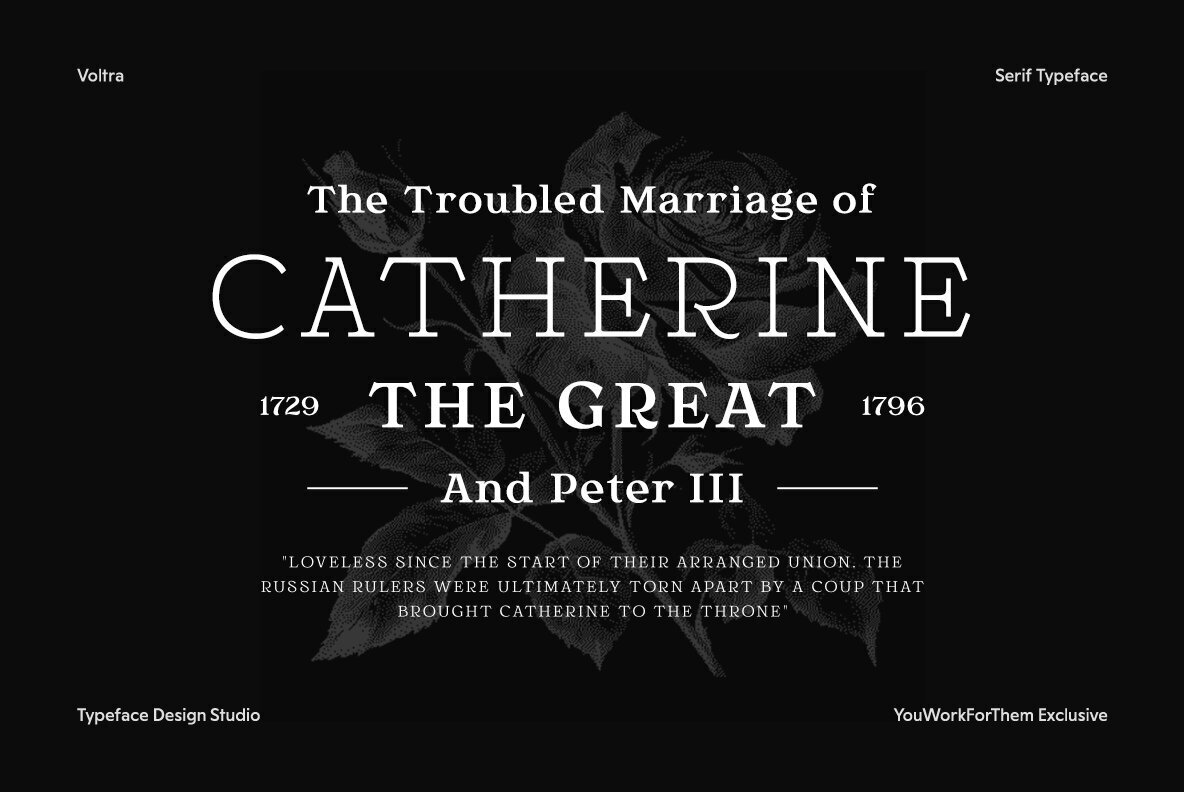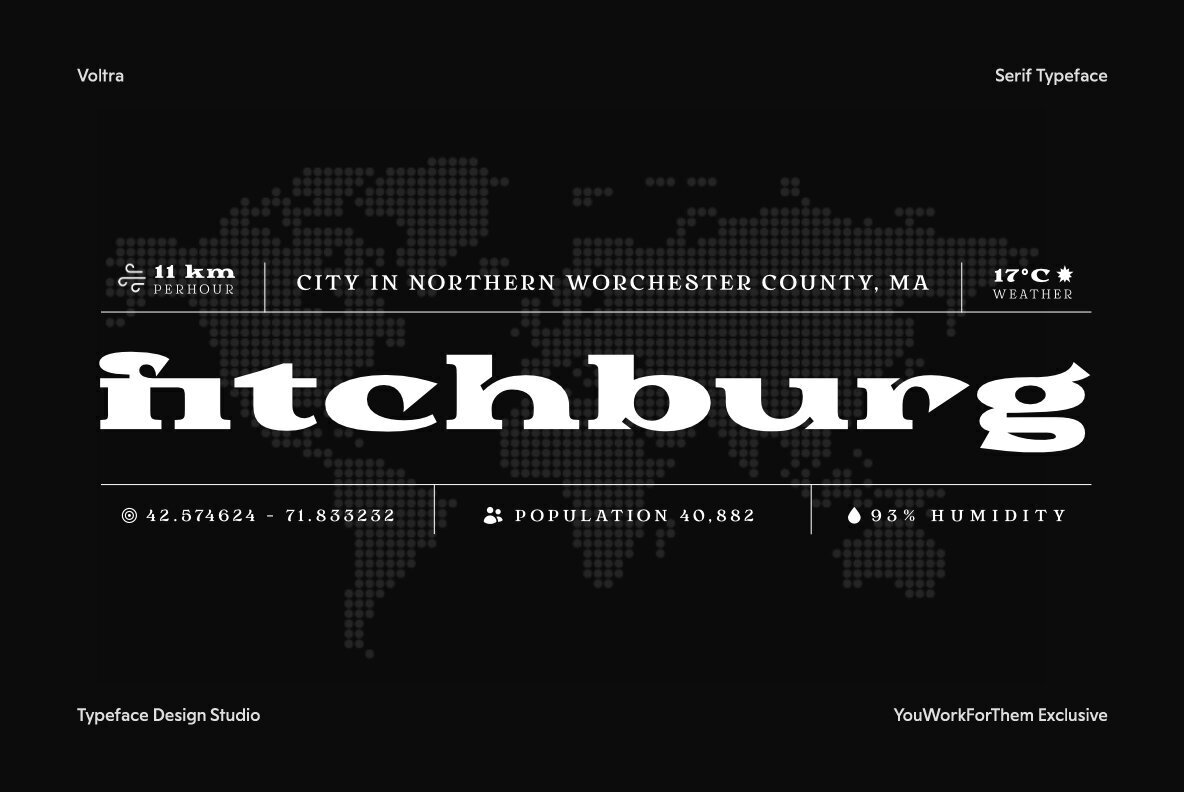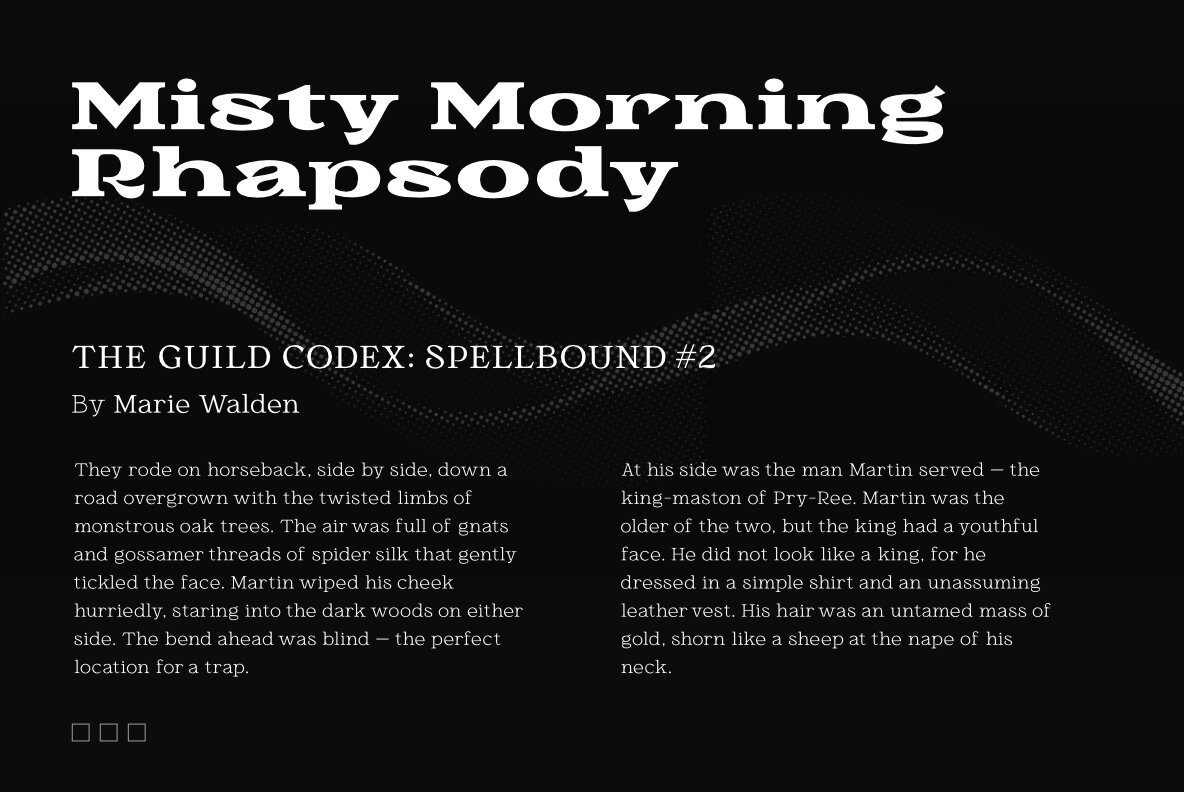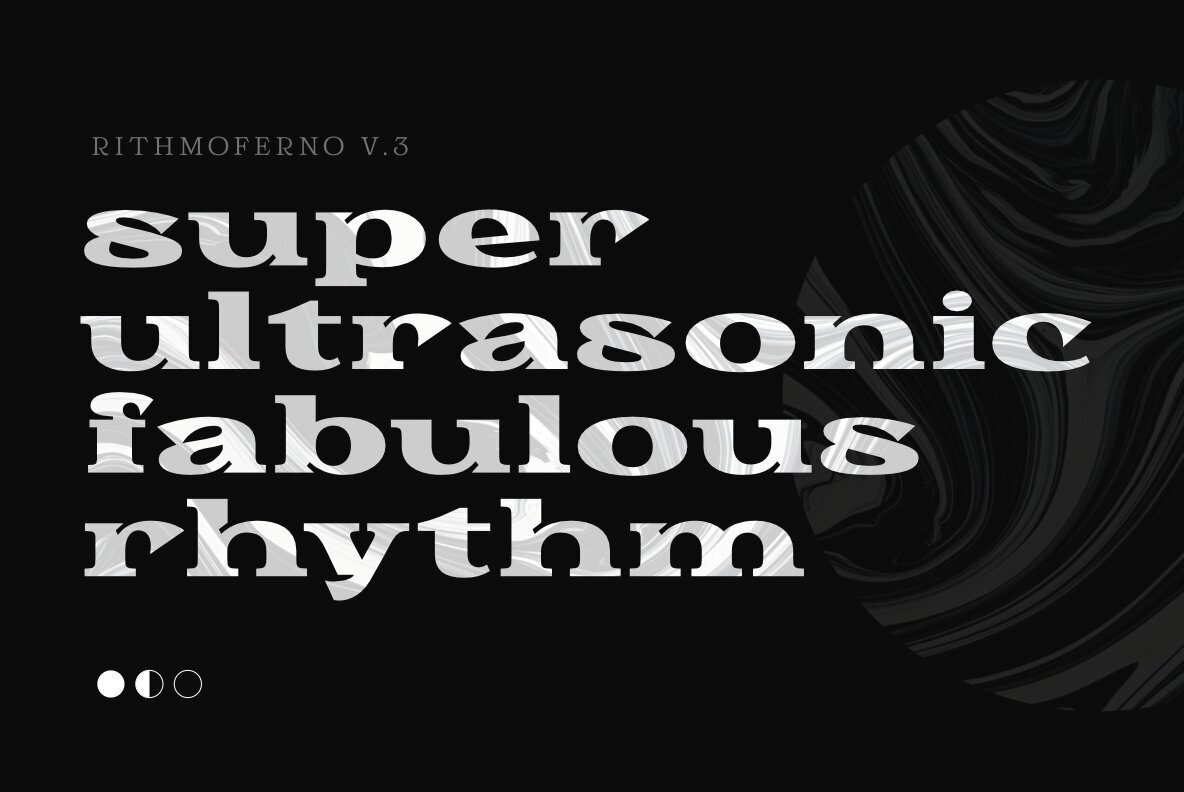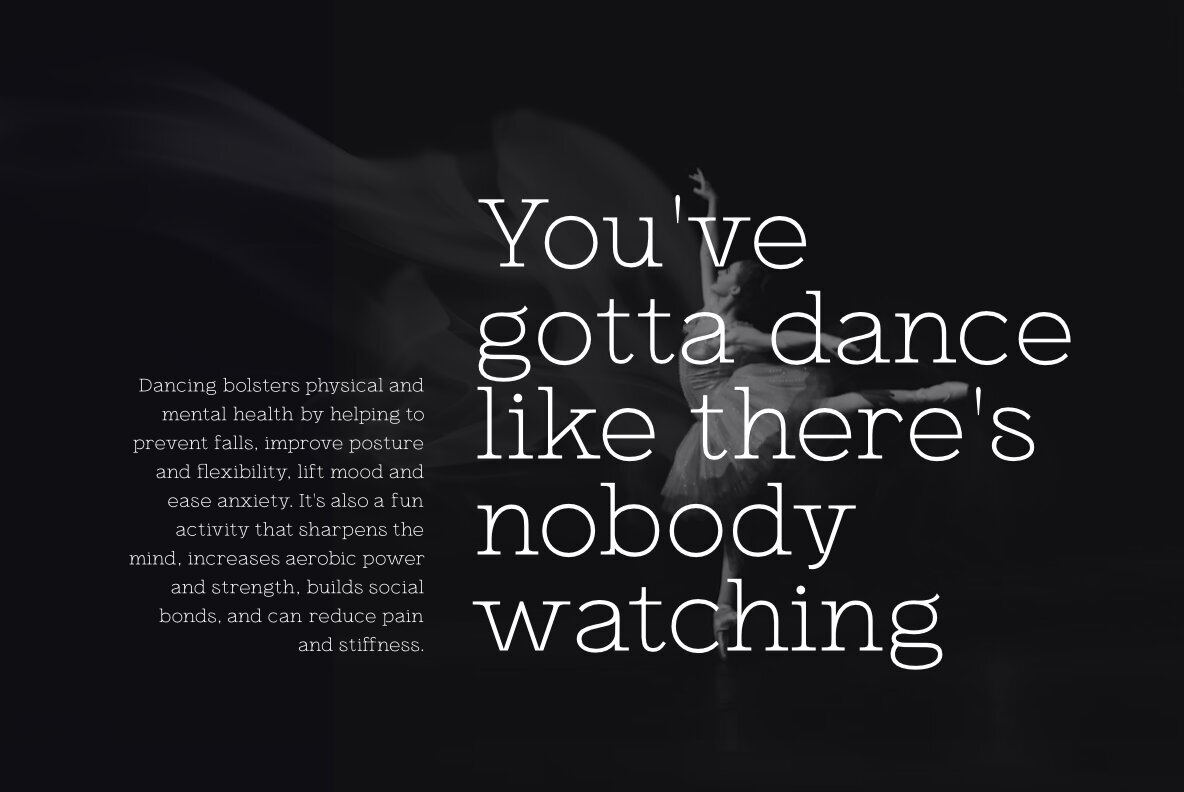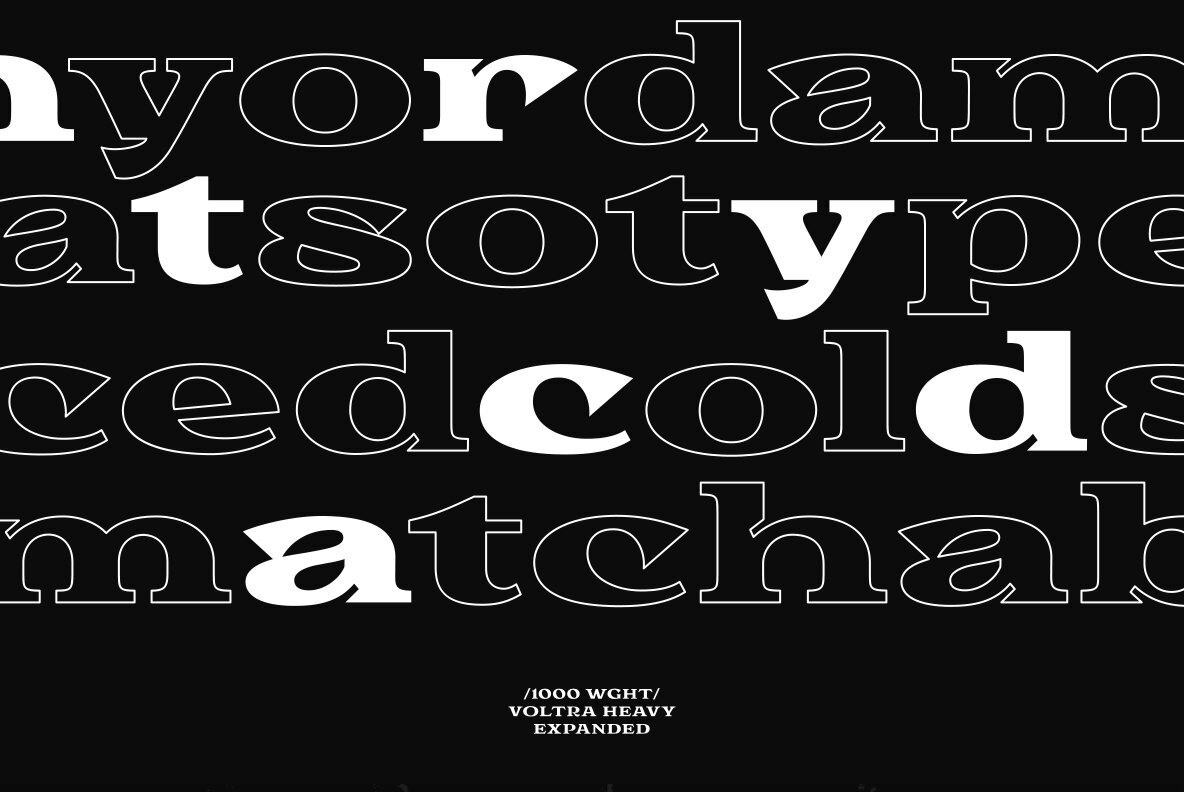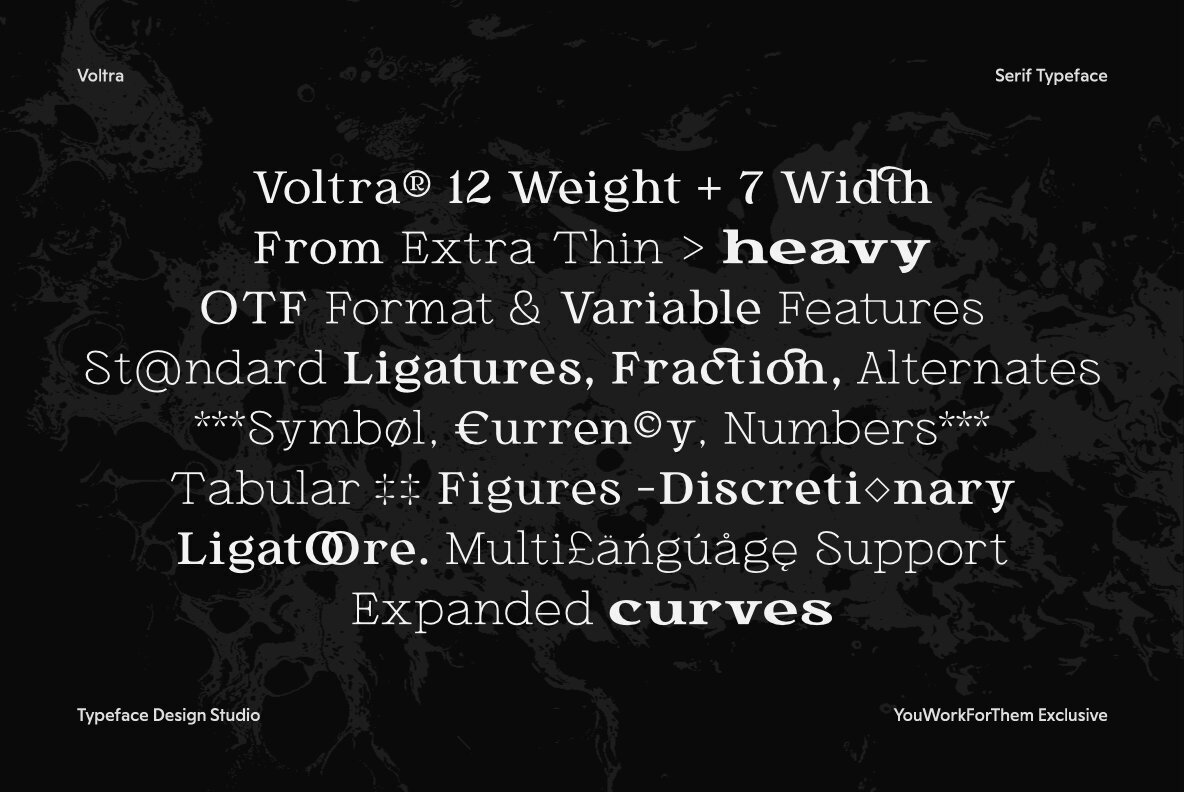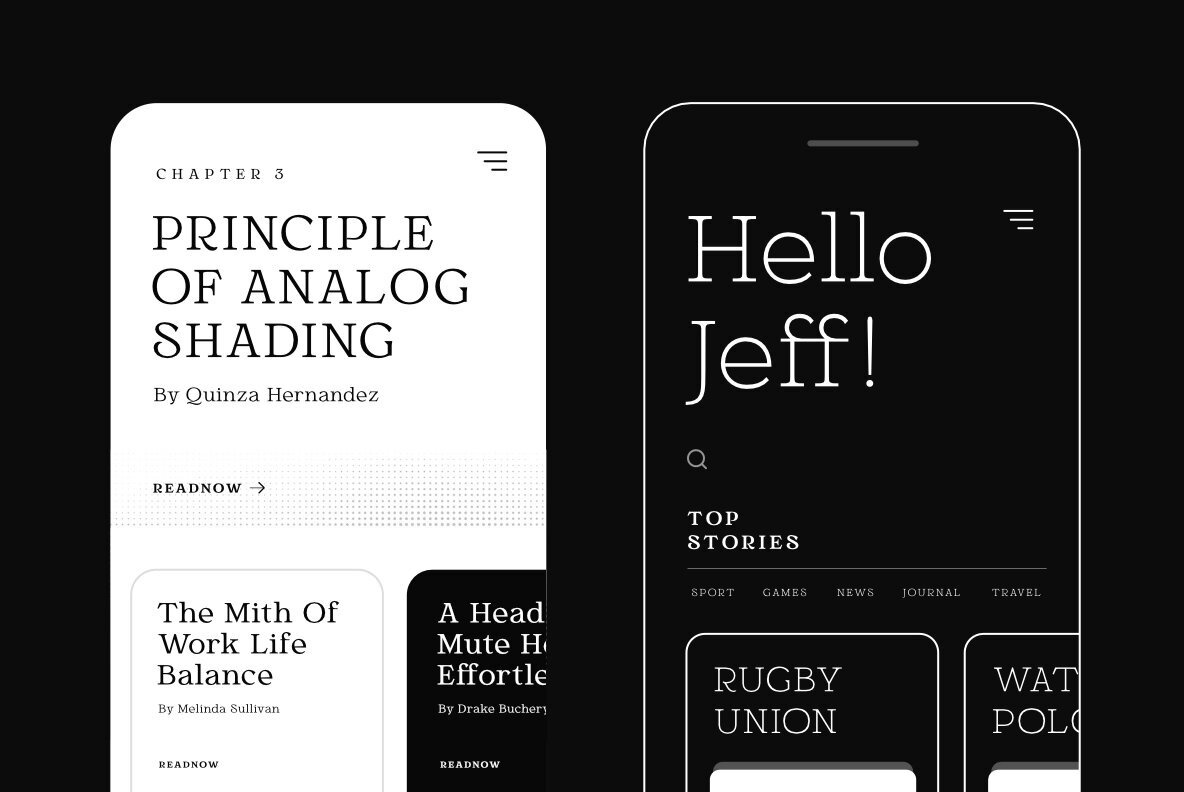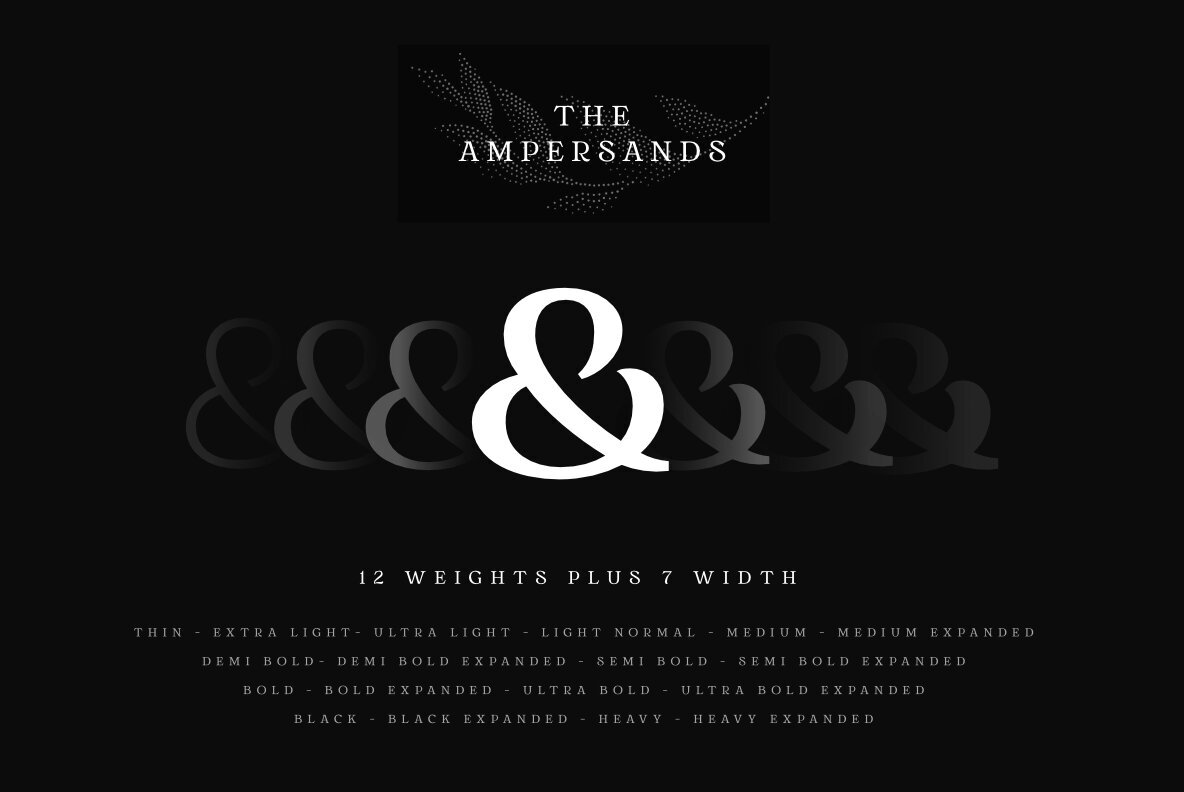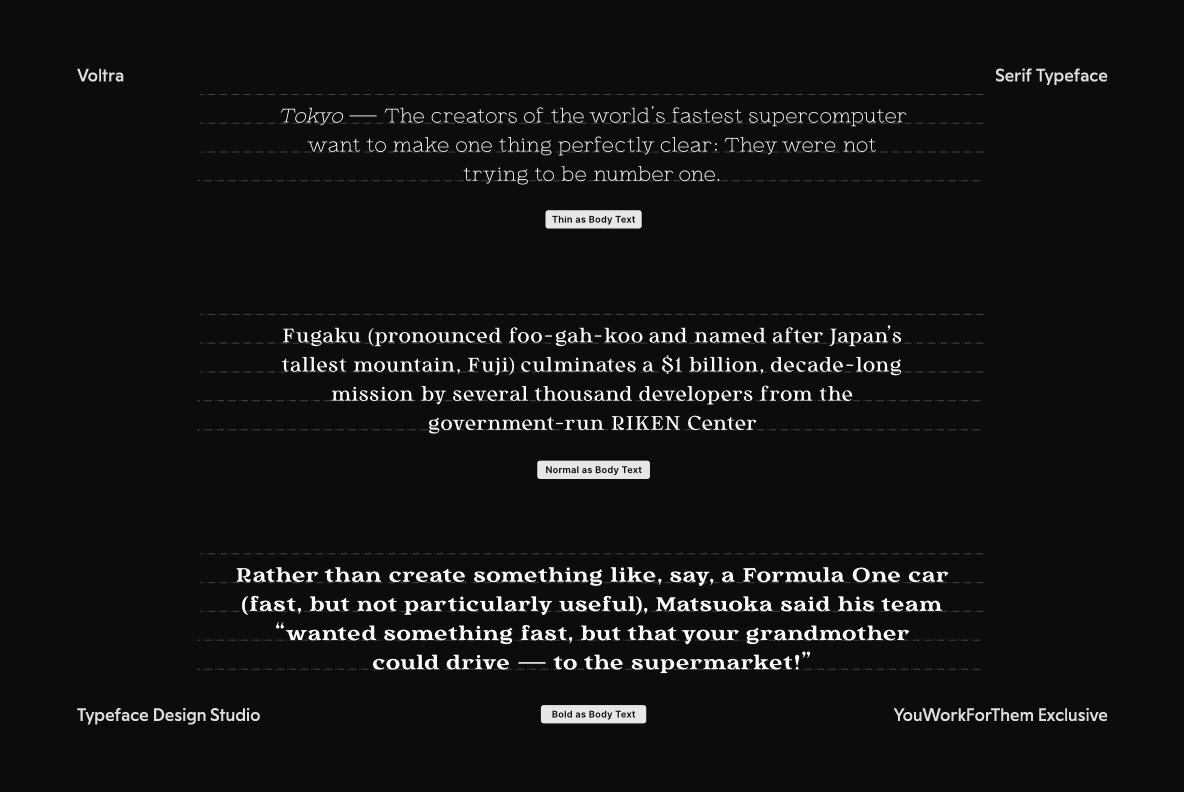
Voltra Font
Voltra stands as an intriguing blend of modern flair and vintage elegance. This YouWorkForThem exclusive serif offers a dynamic range from the thinnest slab to a robust expanded display serif, inviting designers on a visual exploration across its forms. It's engineered to perform seamlessly across mobile and web platforms, making it a versatile option for both digital and print projects. The complete family of Voltra encompasses 19 fonts, featuring both regular and expanded styles, alongside a variable option. Each style boasts over 400 glyphs, providing extensive stylistic choices.Voltra: A Versatile Serif with a Modern Edge